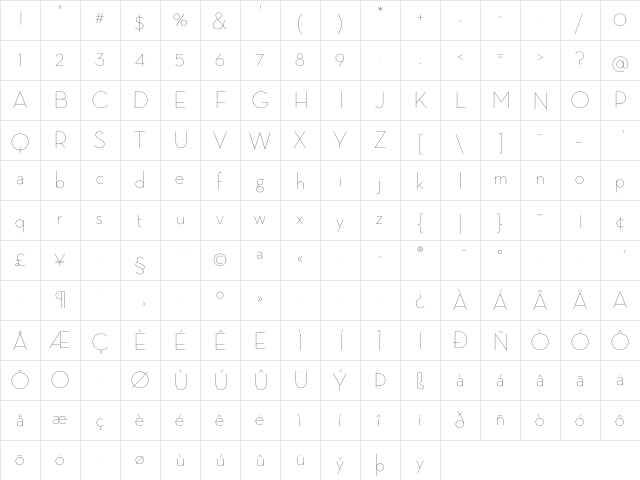
Neutra Display Thin Regular
| Designer | Christian Schwartz |
Design Context for Neutra Display Thin Typeface
Neutra Display Thin is built around its visual character rather than neutral utility — its distinctive forms are designed to make an impression at display sizes. The delicate stroke weight brings airiness and refinement to layouts.
Font Pairing: Pair with a clean neutral sans-serif for body copy to let Neutra Display Thin's character lead without overwhelming the composition.
Pro Tip: Use Neutra Display Thin exclusively at display sizes — it was designed to be seen, not read at length. Let a neutral companion handle body copy.